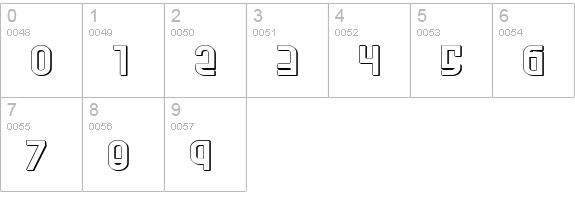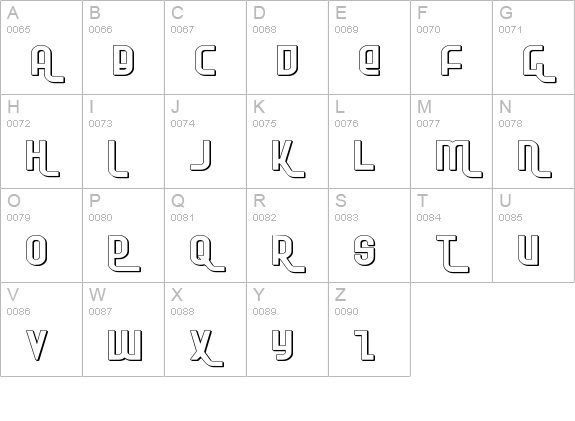
Ro'Ki'Kier Shadow Expanded Font Details
Introducing the Ro'Ki'Kier Shadow Expanded font, a stunning display typeface that exudes elegance and sophistication. This font features intricate shadow details that add depth and dimension to each character, making it perfect for creating eye-catching designs and projects. Ro'Ki'Kier Shadow Expanded font strikes the perfect balance between modernity and classic charm, making it a versatile choice for a wide range of creative applications. Whether you're designing branding materials, advertisements, invitations, or any other project that requires a touch of sophistication, this font is sure to make a lasting impression. Best of all, Ro'Ki'Kier Shadow Expanded font is completely free to download at FontsMarket.com. Take advantage of this incredible offer and elevate your designs with the timeless beauty of Ro'Ki'Kier Shadow Expanded font today!